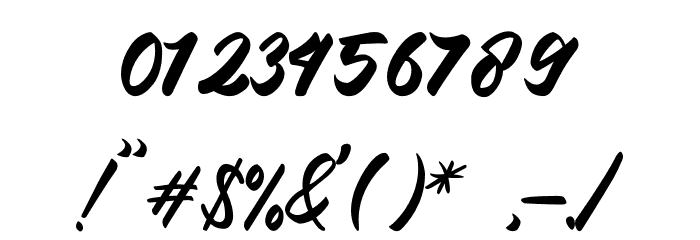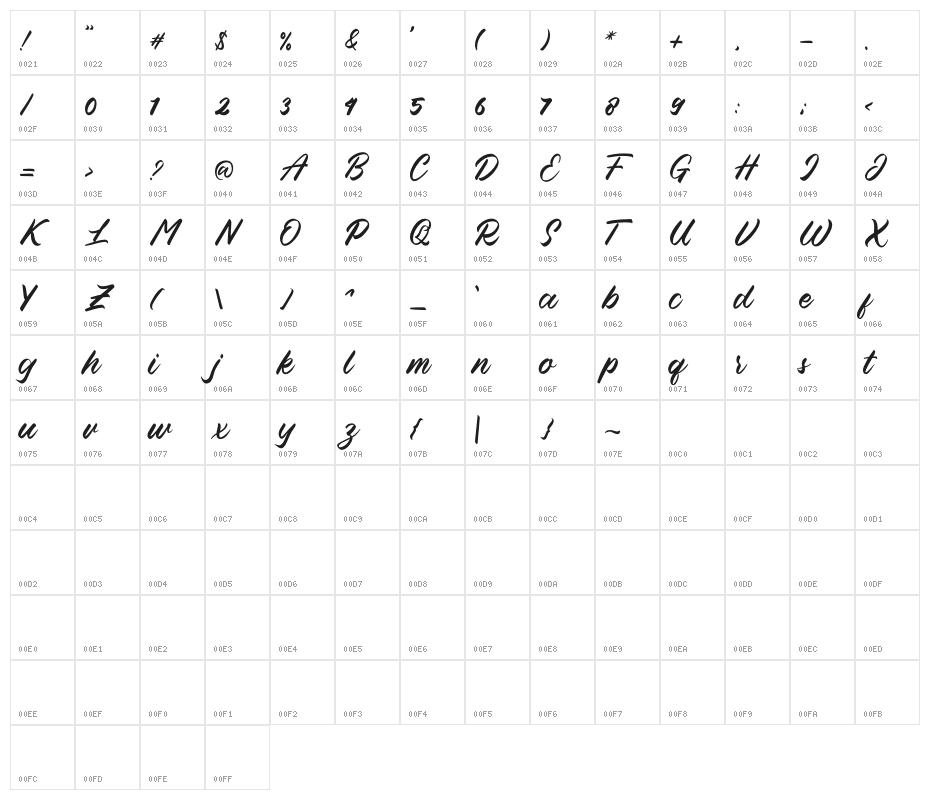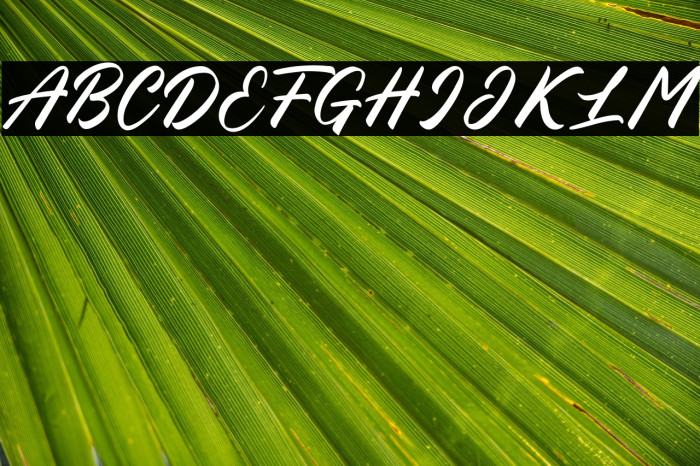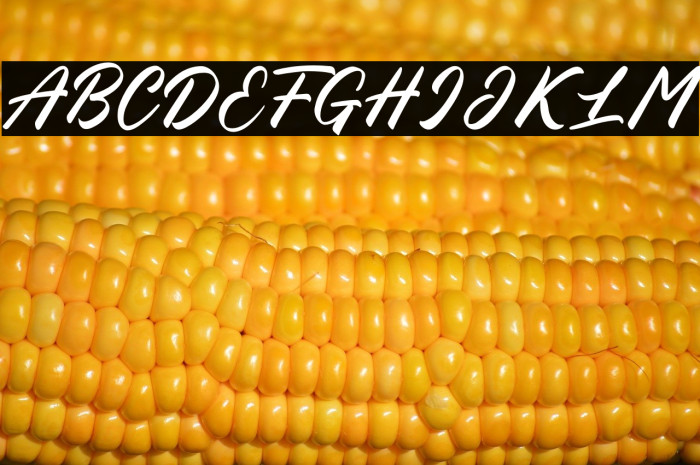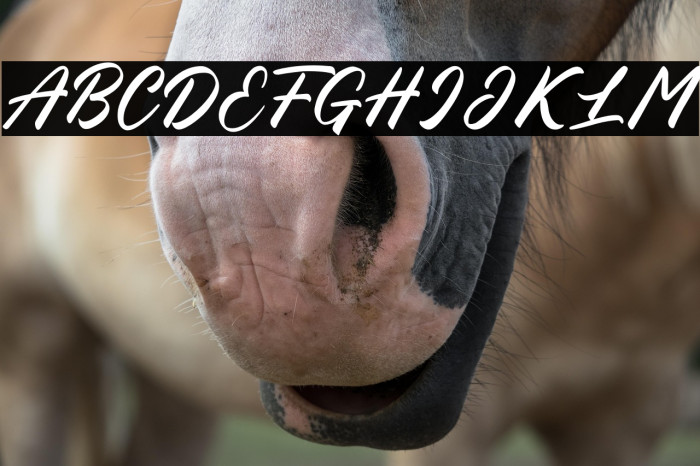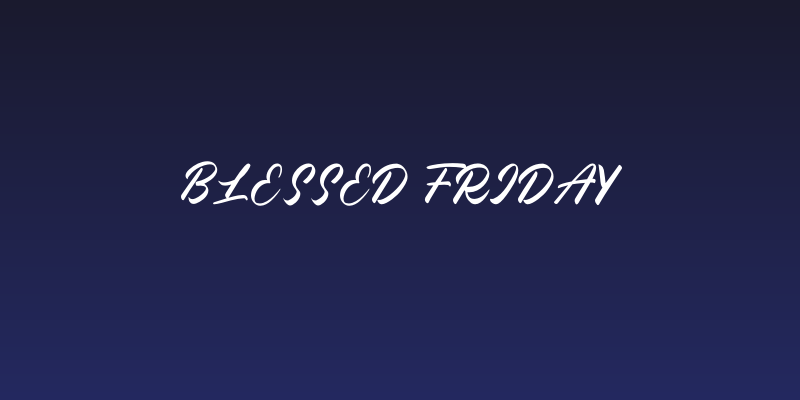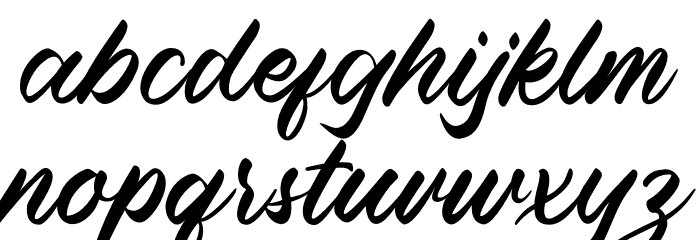
Blessed Friday Font
Blessed Friday Description
This font features a flowing, cursive style that exudes elegance and sophistication. The characters are connected, creating a seamless and fluid appearance that mimics natural handwriting. The strokes are bold and confident, with a slight slant that enhances the script's dynamic feel. The uppercase letters are grand and sweeping, while the lowercase letters maintain a consistent rhythm and balance. Numbers and special characters are crafted with the same attention to detail, ensuring a cohesive look across all elements. This font is perfect for projects that require a touch of class and personality.